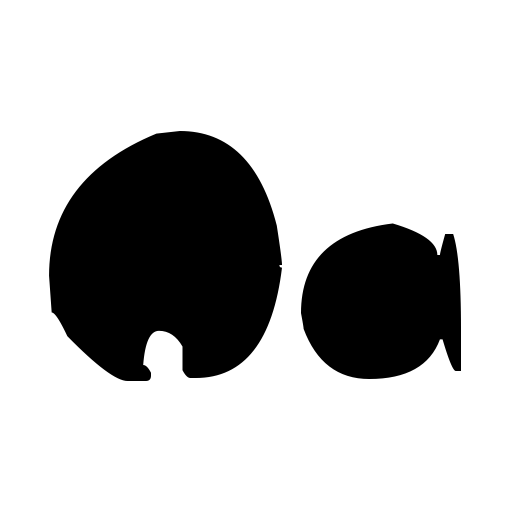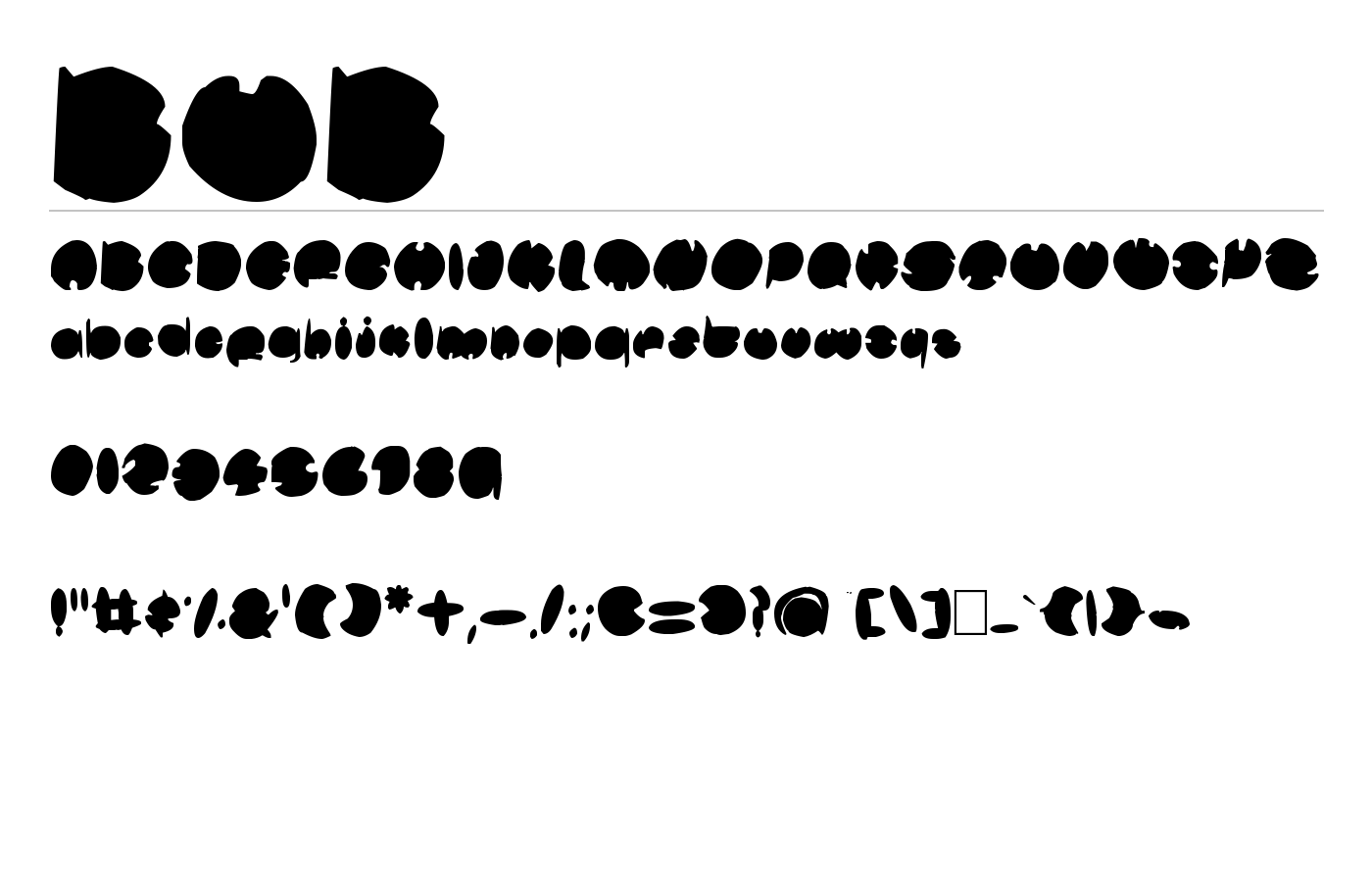
BUB is a bold, playful display font characterized by its chunky, rounded letterforms and heavy weight, giving it a fun and approachable personality. Its dense, bubble-like shapes create a whimsical and informal feel, making it perfect for creative projects, children’s designs, and eye-catching headlines where a lively and friendly vibe is desired.
BUB Font
About BUB Font